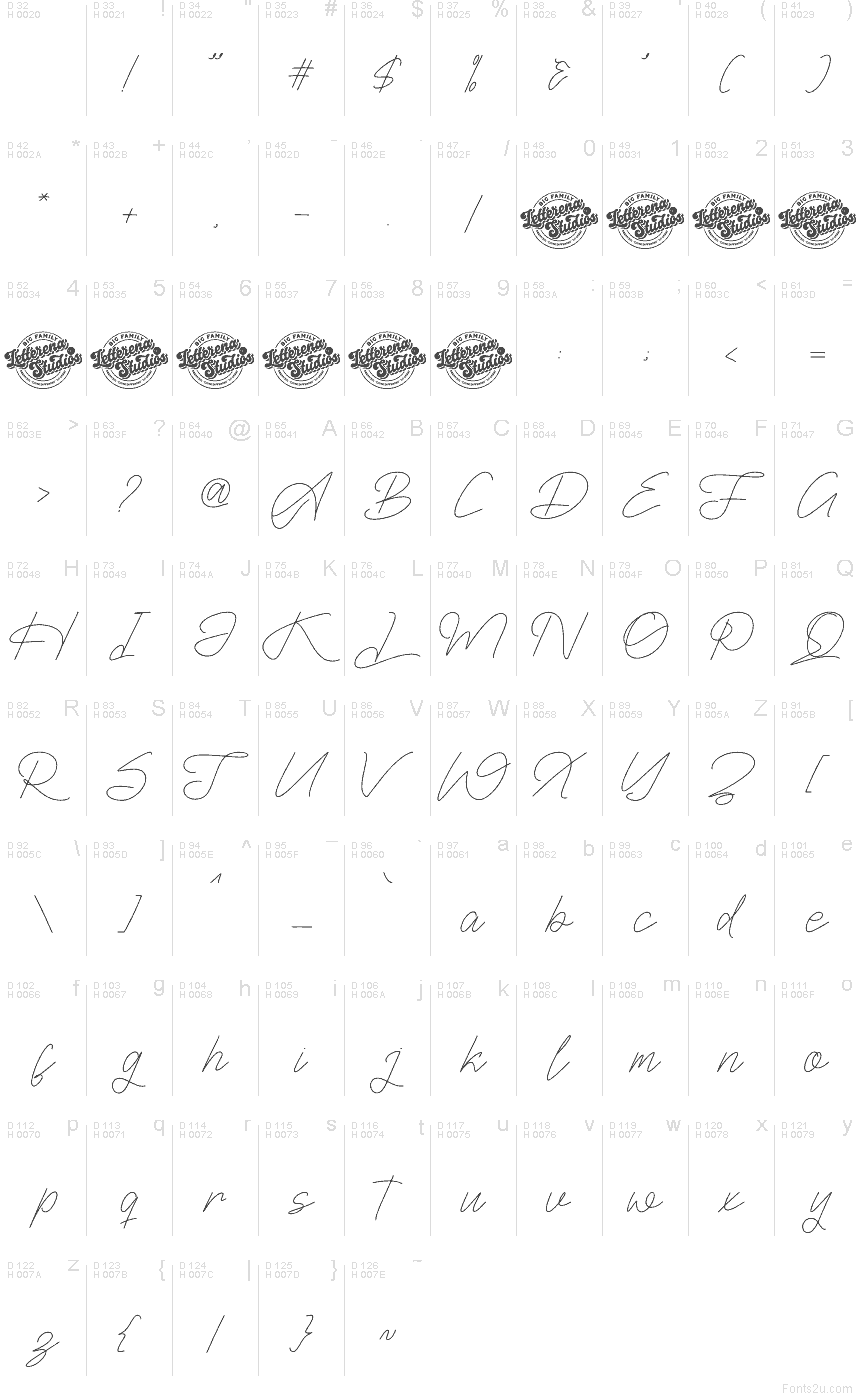
Rimgatho font by Letterena Studios is a free handwritten script typeface that solves a familiar challenge: getting that delicate, ink-on-paper look without losing clarity. Its ultra-fine monoline strokes and gently looping connections feel like a careful signature, yet the spacing stays open and breathable, so words don’t collapse into a tangle. The result is a light, airy script that looks personal and refined rather than messy or overdecorated.
Using Rimgatho, your text feels like it was written with a smooth gel pen on crisp stationery, making this free font a natural fit for signatures, branding suites, invitations, social media posts, packaging, and watermark logos. It shines when given room to stretch at medium to large sizes. For a simple, polished pairing, set headlines in Rimgatho and keep supporting text in a clean geometric sans.